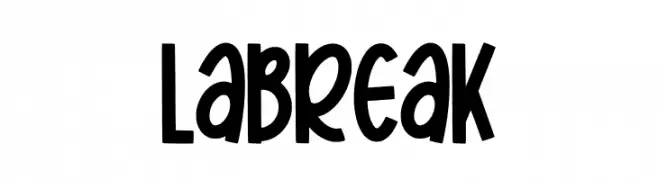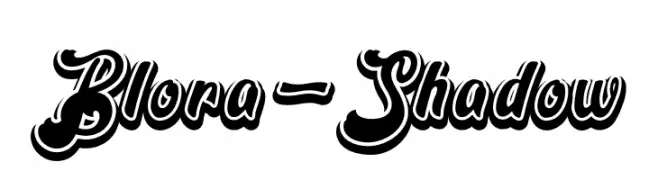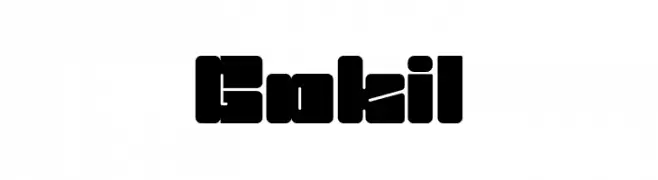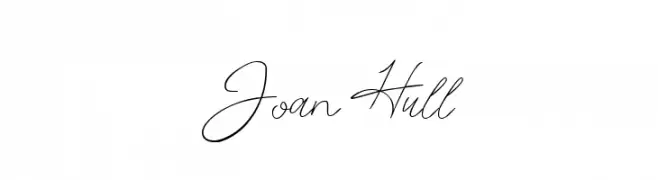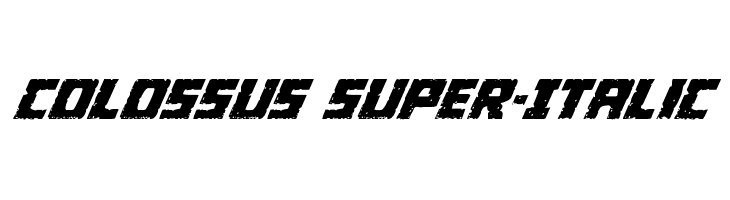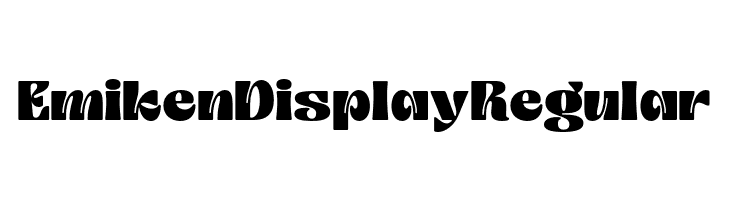
( Fonts by Skiiller Studio )
A playful, bold, and hand-drawn font with a whimsical flair.
A bold script font with a dynamic shadow effect, perfect for impactful designs.
A sleek, modern italic font with a geometric and dynamic style.
A decorative, vintage-style font with bold, textured characters and pronounced serifs.
( Fonts by Fajar Ramadan )
A bold, geometric font with a modern and edgy style.
( Fonts by Alexis Thompson )
A playful, handwritten font with irregular, organic strokes.
A bold, semi-italic, geometric font with a modern and futuristic style.
A playful, comic-style handwritten font with smooth curves and a dynamic feel.
A bold, high-contrast serif font with elegant and sophisticated features.
( Fonts by Staircase Studio )
A graceful, cursive script font with a natural, handwritten style.